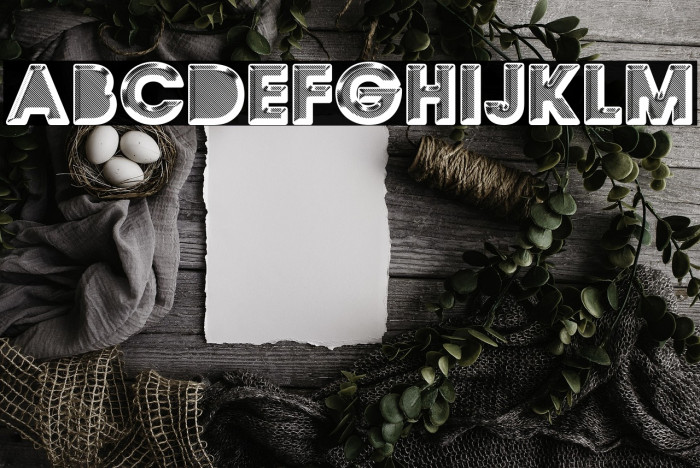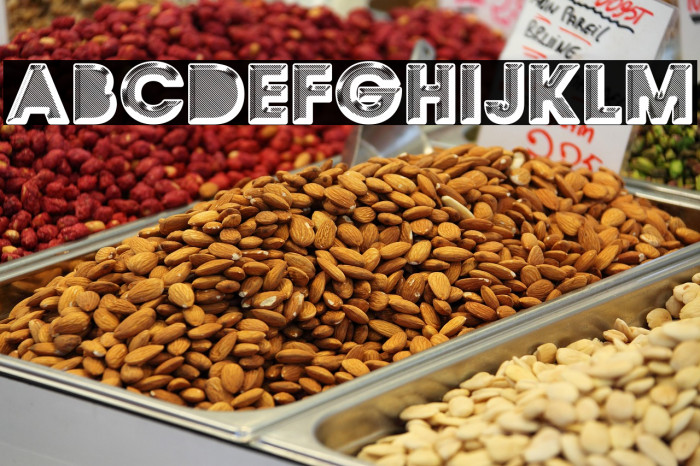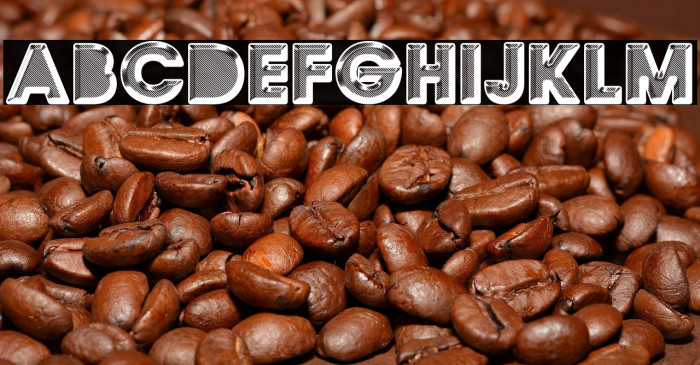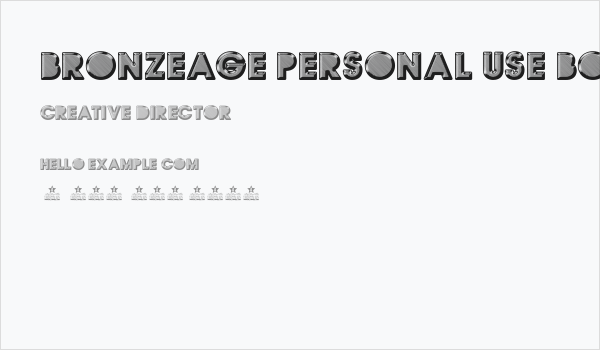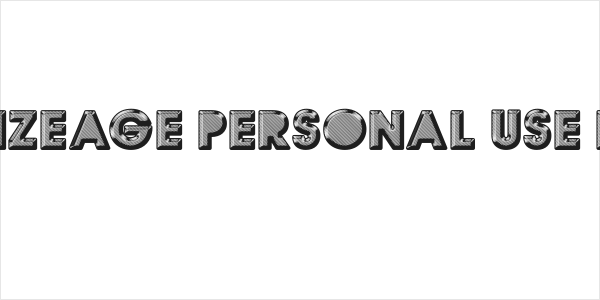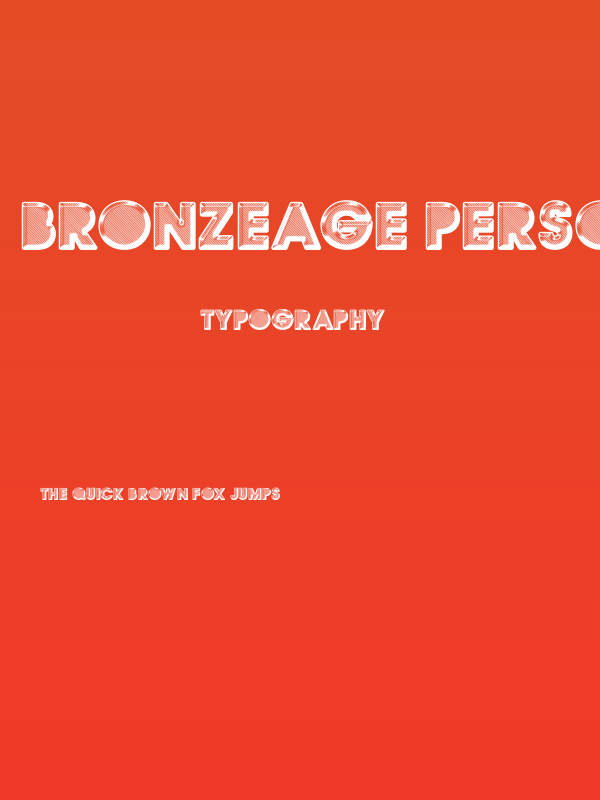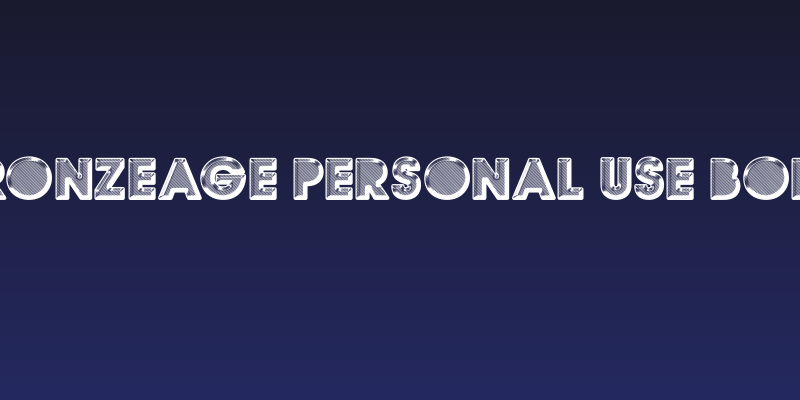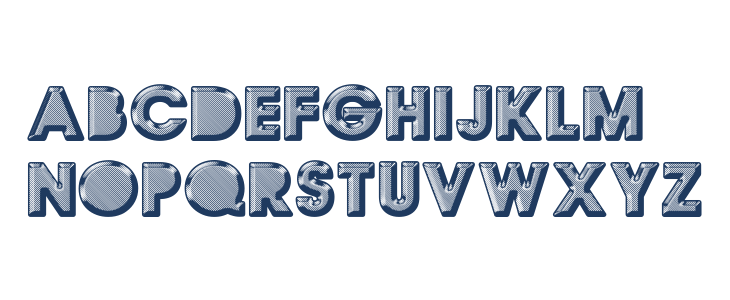
BRONZEAGE PERSONAL USE Bold Font
BRONZEAGE PERSONAL USE Bold Description
This font features a bold and decorative style with a three-dimensional effect, achieved through intricate shading and line work. The characters are uppercase, with a solid and robust appearance, making them stand out prominently. The design incorporates a vintage aesthetic, reminiscent of retro signage or comic book titles. The use of diagonal lines within the letters adds depth and texture, enhancing the overall visual impact. This font is ideal for creating eye-catching headlines, posters, or any design that requires a strong and dynamic typographic presence.
Overall StyleVintage
Use CaseHeadlines, Posters, Signage
Proposed ProjectsIdeal for retro-themed posters, comic book titles, signage, and eye-catching headlines.